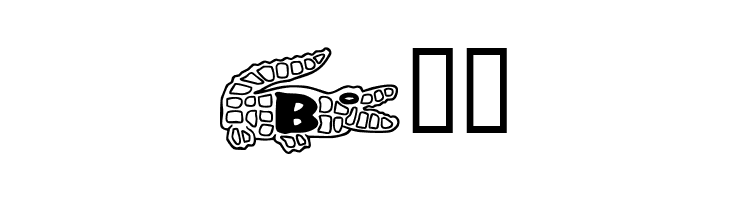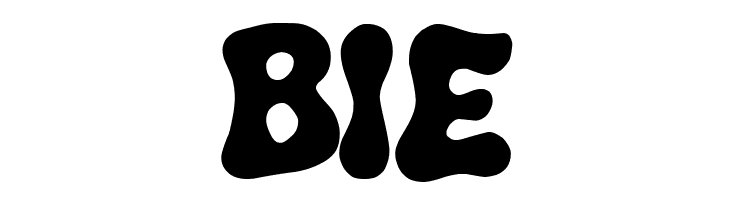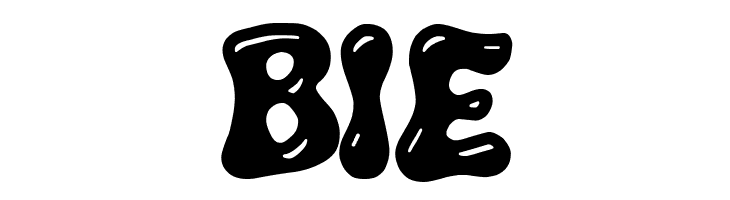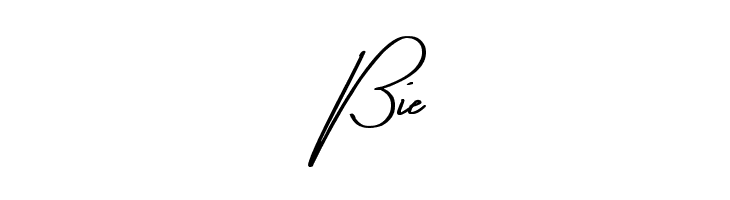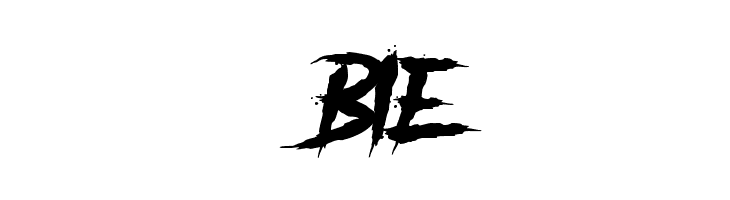
( Fonts by The Branded Quotes )
A decorative script font with elongated, flowing lines and dynamic movement.
( Fonts by The Branded Quotes )
A bold, hand-painted style font with thick, uneven strokes and a playful, dynamic feel.
( Fonts by The Branded Quotes )
A bold, textured font with a hand-drawn, graffiti-like style.
( Fonts by The Branded Quotes )
A bold, hand-drawn font with elongated, textured strokes and a dynamic, urban feel.
( Fonts by The Branded Quotes )
A bold, slanted font with jagged edges and a dynamic, energetic style.
( Fonts by The Branded Quotes )
A bold, jagged, and energetic font with a brush-painted appearance.
( Fonts by The Branded Quotes )
A bold, expressive brush-style font with dynamic, hand-painted strokes.
( Fonts by The Branded Quotes )
A bold, playful font with rounded, bubbly characters and high contrast.
( Fonts by The Branded Quotes )
A bold, playful font with a bubbly, liquid-like appearance.
( Renny Murray - www.rennysniche.com )
A playful alligator motif with a bold, cartoonish style.